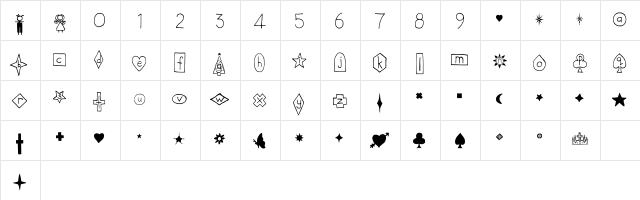
Friendship Bracelets Regular Font Preview
Friendship Bracelets Regular
Friendship Bracelets Regular Font Details
Design Context for Friendship Bracelets Typeface
Friendship Bracelets is a composed and adaptable typeface that performs quietly and consistently across a wide range of design contexts.